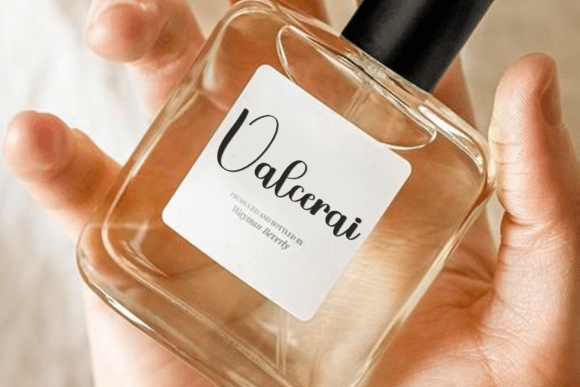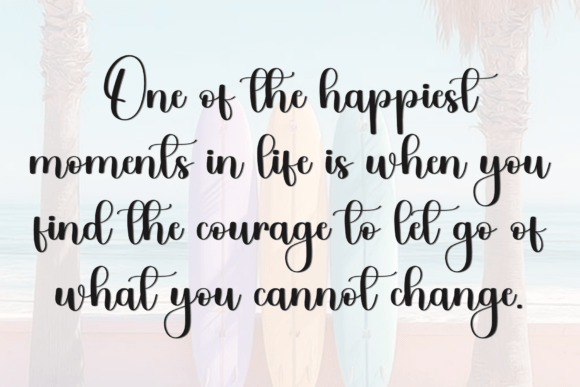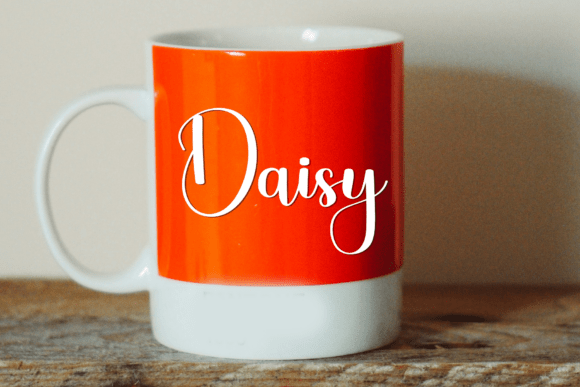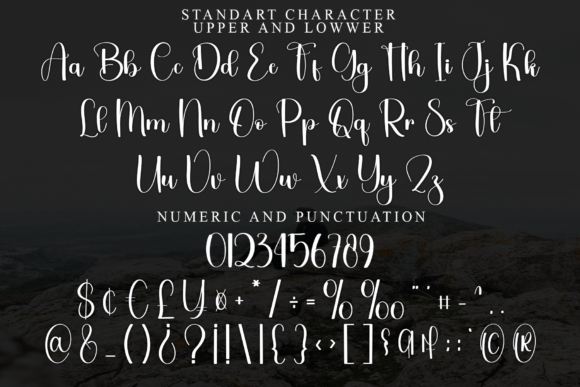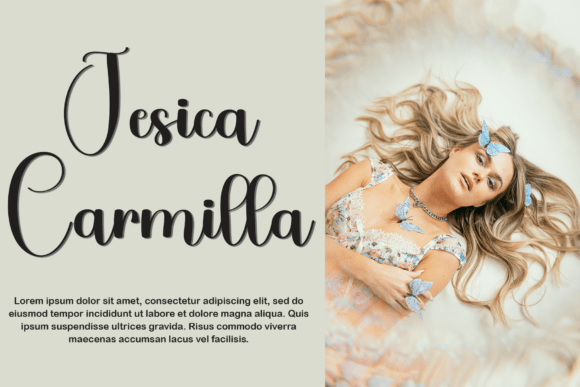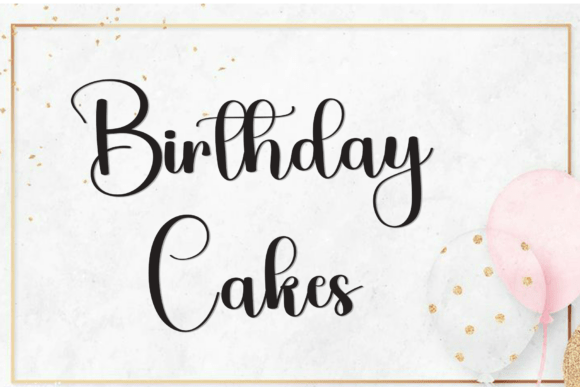
Introducing Digitalis Font: A Festive and Merry Typeface for the Holiday Season
As the holiday season approaches, designers and crafters are on the lookout for typography that captures the spirit of joy, cheer, and festivity. Look no further than Digitalis Font, a decorative typeface that embodies the magic of the holiday season. With its whimsical flair and enchanting elements, Digitalis Font is the perfect addition to your holiday-themed projects.
Digitalis Font is a carefully crafted typeface designed to evoke the nostalgia and wonder of the holiday season. Its decorative elements and whimsical flair add a touch of enchantment to your designs, making it ideal for greeting cards, gift tags, and holiday-themed projects. Whether you’re a designer, crafter, or DIY enthusiast, Digitalis Font is sure to bring a cheerful and nostalgic ambiance to your words.
Digitalis Font is specifically designed for holiday-themed projects, making it a versatile and valuable addition to your typography collection. Use it to create:
• Festive greeting cards for friends and family
• Whimsical gift tags for presents
• Enchanting holiday-themed social media graphics
• Magical invitations for holiday parties and events
One of the standout features of Digitalis Font is its PUA (Private Use Area) encoding. This means that you can access all of the amazing glyphs and ligatures with ease, giving you unparalleled creative control over your typography. With Digitalis Font, you can:
• Access a wide range of decorative elements and swashes
• Create custom ligatures and word combinations
• Experiment with different typography styles and effects
Bringing Magic to Your Typography
Digitalis Font is more than just a typeface – it’s a way to bring magic to your typography. With its festive and merry design, it’s sure to add a touch of wonder and enchantment to your designs. Whether you’re working on a holiday-themed project or simply want to add some cheer to your typography, Digitalis Font is the perfect choice.
Digitalis Font is a festive and merry typeface that’s sure to capture the spirit of the holiday season. With its decorative elements, whimsical flair, and PUA encoding, it’s the perfect addition to your typography collection. Whether you’re a designer, crafter, or DIY enthusiast, Digitalis Font is sure to bring a touch of magic to your designs. So why wait? Get creative with Digitalis Font today and make your holiday-themed projects shine!